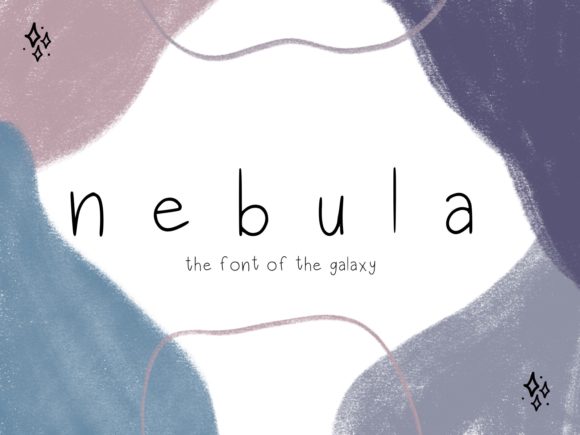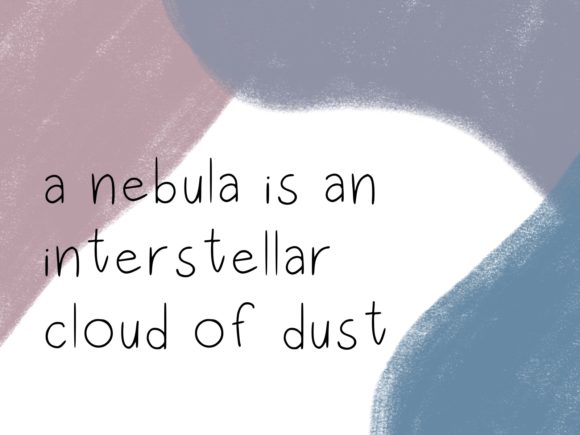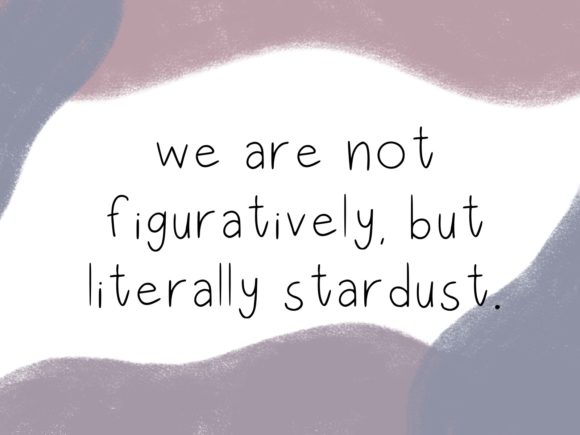
Nebula Font
About Nebula Font
Nebula is a neat and simple handwritten font. Whether you’re looking for fonts for Instagram or calligraphy scripts for DIY projects, this font will turn any creative idea into a true piece of art! Enjoy making cards or displaying on posters, perfect with a funky edge!